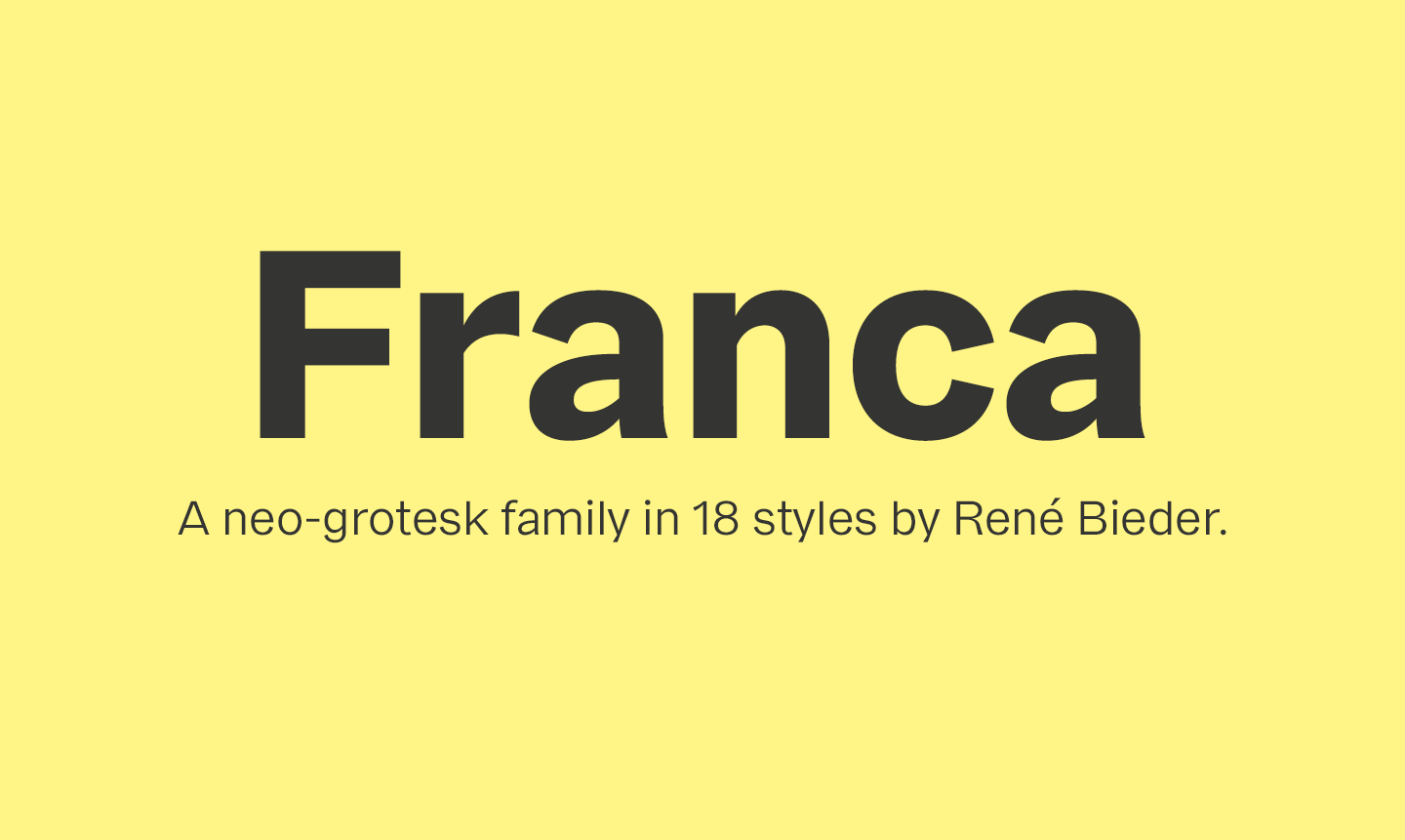
Franca Font Family
The following is a new font family, it’s perfect for all your projects. Introducing Franca! It is designed and shared by Rene Bieder. Franca is a neo-grotesk family in nine weights plus matching italics. The inspiration for the design came trough the constant interest in new interpretations of the classic grotesk model and a study of „neutral“ typefaces like Helvetica, Univers or Normal Grotesk.
During the studies, additional attention was given to the American representatives of the genre, resulting in the initial impetus for a reinterpretation, combining both paths into one contemporary design.